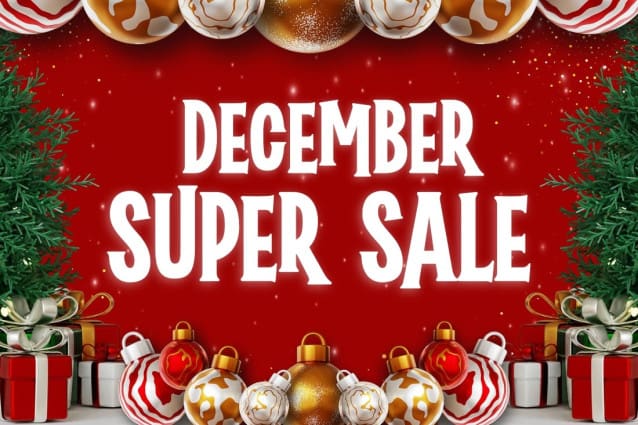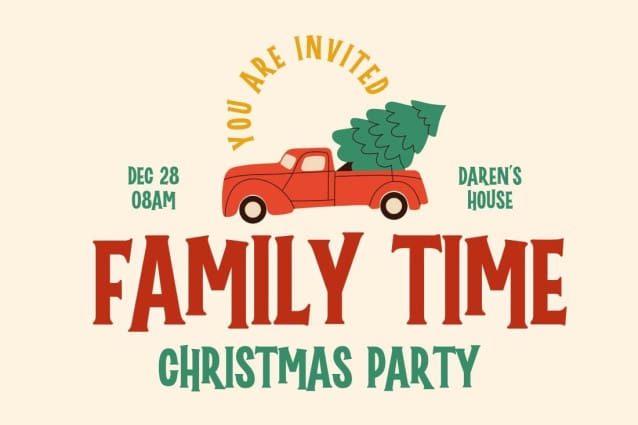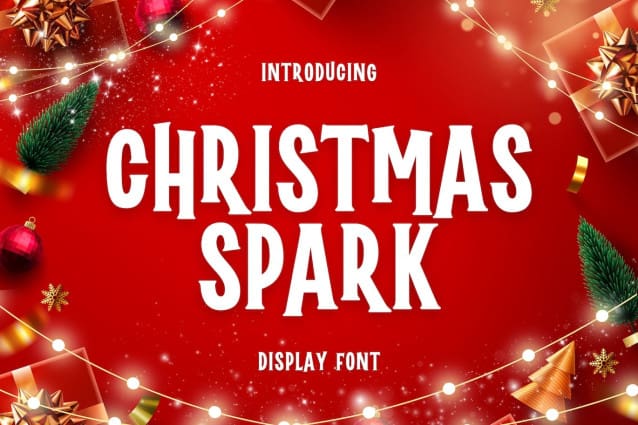
Christmas Spark Font
Christmas Spark Font, the perfect typographic embodiment of the holiday spirit! This font is designed to infuse your Christmas designs with the warmth and energy of Christmas and New Year.
“Christmas Spark” is the perfect choice for adding a touch of Christmas magic to your digital projects. Its fresh, modern style pairs perfectly with retro charm, creating a unique fusion perfect for any party or digital invitation.
With each character, “Christmas Spark” evokes both new beginnings and nostalgia, making it ideal for contemporary and classic themed designs. Whether you’re creating Christmas greetings, digital cards or promotional materials, this font will give your work an irresistible festive touch.
Unleash your creativity and set the tone for a happy holiday season with “Christmas Spark”. “Watch your designs come to life with the captivating charm of this font, making every project a celebration. This is the new font you need for the holiday season!